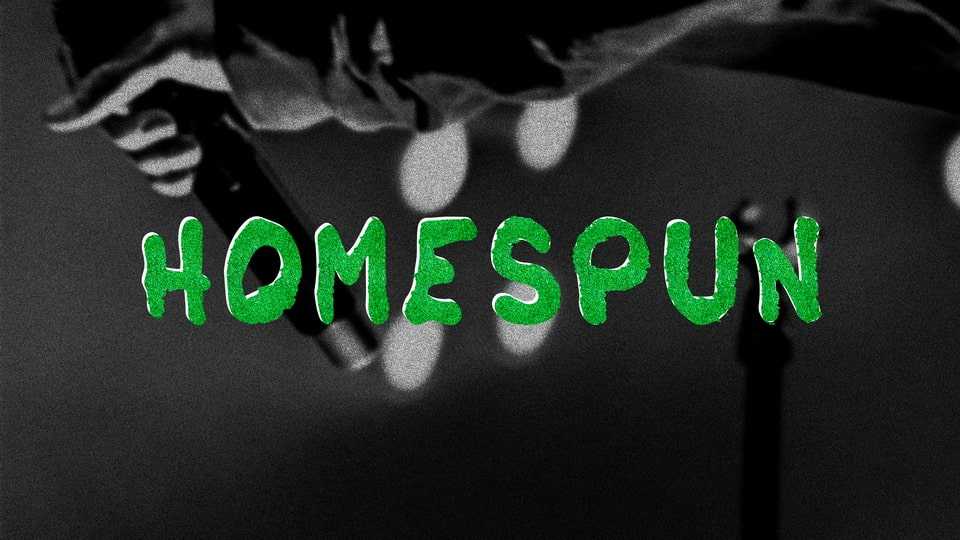
Download Homespun font, a casual hand lettered typeface. This font will look so good on posters, notes, quotes, crafts and any other informal projects.